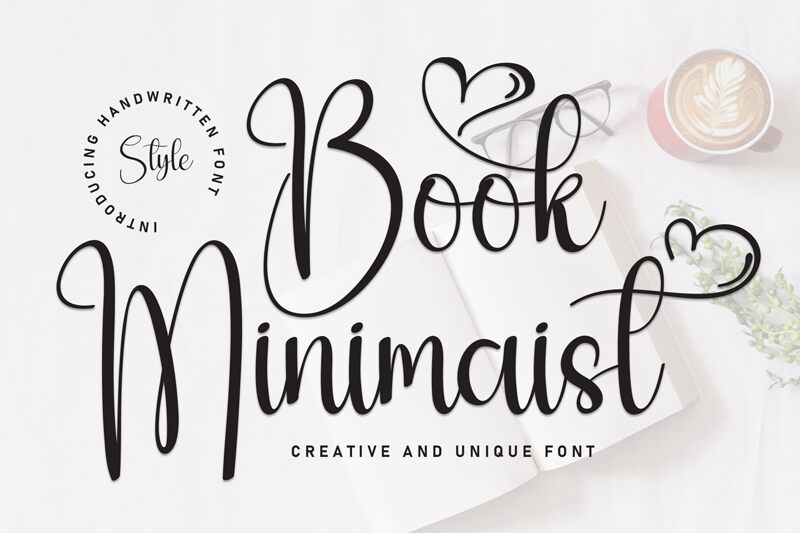
Book Minimalist
Book Minimalist font by Scratchones is a gem with a classic touch that perfectly blends elegance and simplicity. This free handwritten font features flowing letters with calligraphic playful rounded endings and subtle curves. It could easily become your go-to design tool for nice clean typography.
This wonderful set of glyphs could be useful for packaging designs, advertising, branding, book covers and magazines. Use Book Minimalist in posters, signages, blog titles UI/UX designs or even in social media channels’ highlight icons.